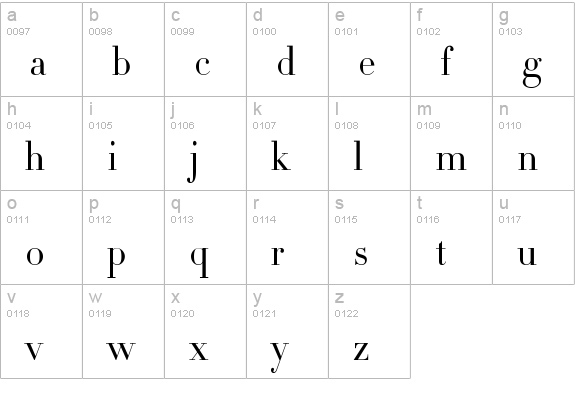
Didot-HTF-L16-Light Font Details
Didot-HTF-L16-Light is a refined, elegant variant in the Didot typeface family \xE2\x80\x94 well suited to elegant body text, refined sub-headings, and luxury branding.
The Didot-HTF-L16-Light font exudes elegance and sophistication with its slender and refined appearance. Its delicate serifs and high contrast make it a timeless choice for projects that require a touch of class. This font is perfect for creating stylish invitations, luxury branding, and editorial designs that demand a touch of sophistication. And the best part? Didot-HTF-L16-Light is available for free download at FontsMarket.com. Now you can effortlessly elevate your designs with this exquisite typeface without any cost. Embrace the beauty and grace of the Didot-HTF-L16-Light font and bring a touch of luxury to your creative projects. Download it today and see how it can enhance your designs with its timeless charm.